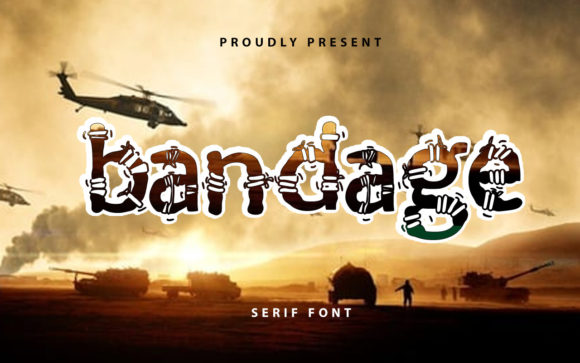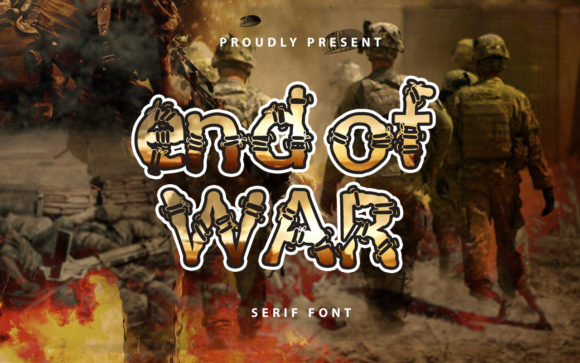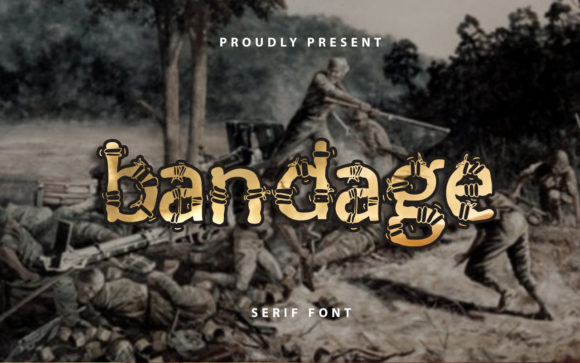
Introduction to Bandage Font
Bandage is a cool and uniquely designed display font.
It will look stunning on any poster flyer or print Use this font for your designs and explore its endless possibilities.
Why Choose Bandage Font?
Bandage Font offers exceptional quality and versatility, making it a valuable addition to your design toolkit. Whether you’re creating for personal projects or commercial use, Bandage Font delivers professional results.